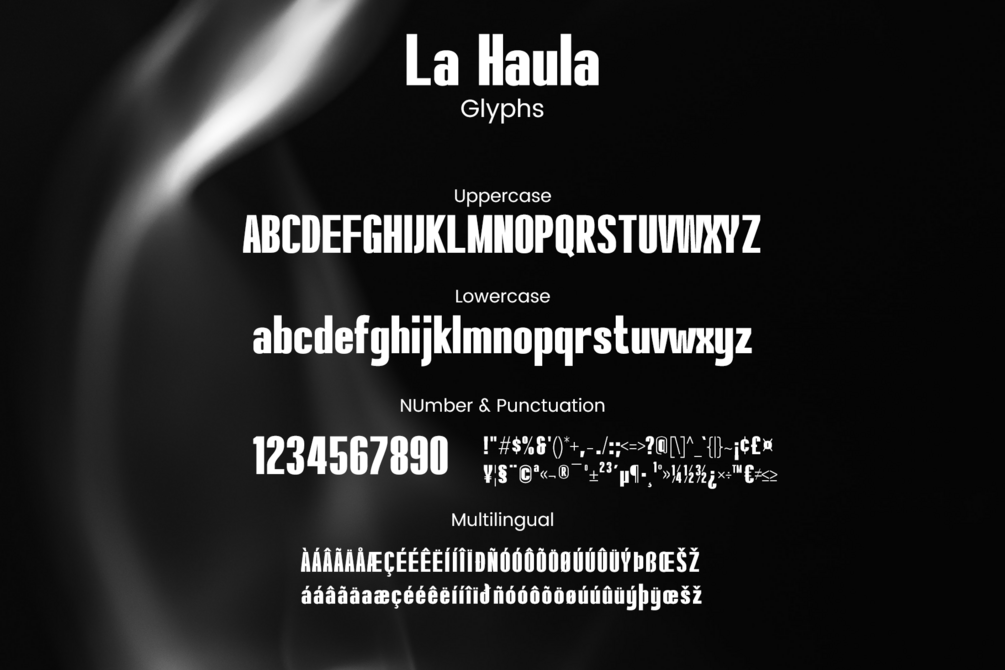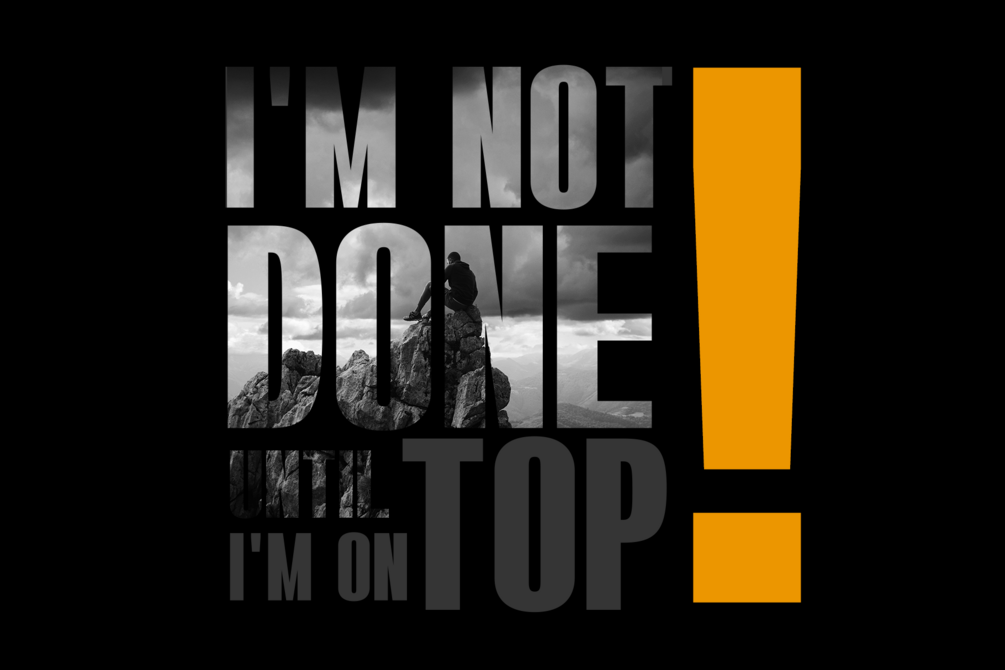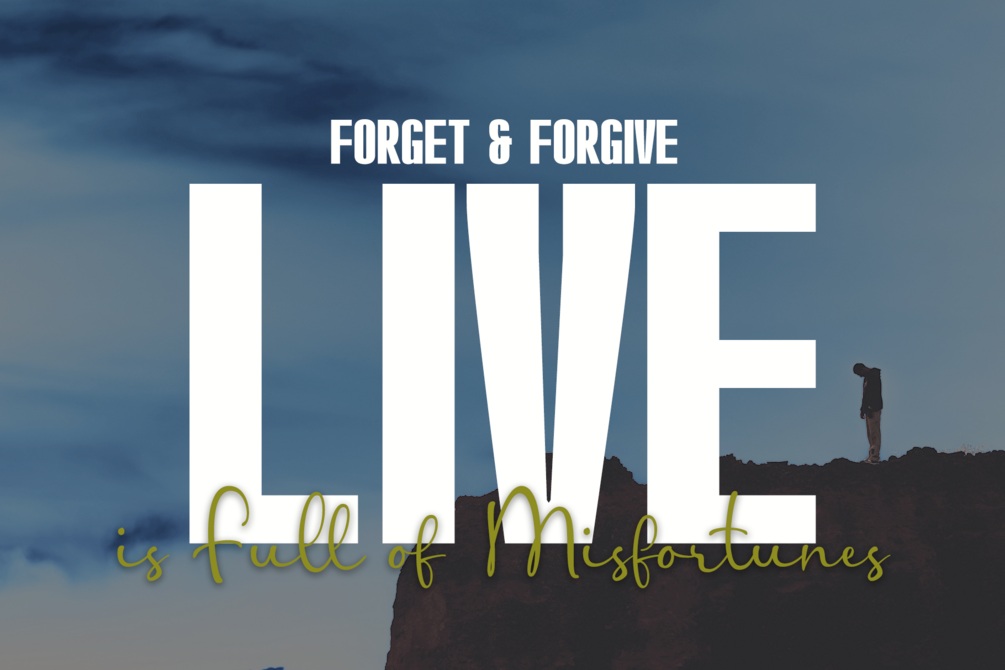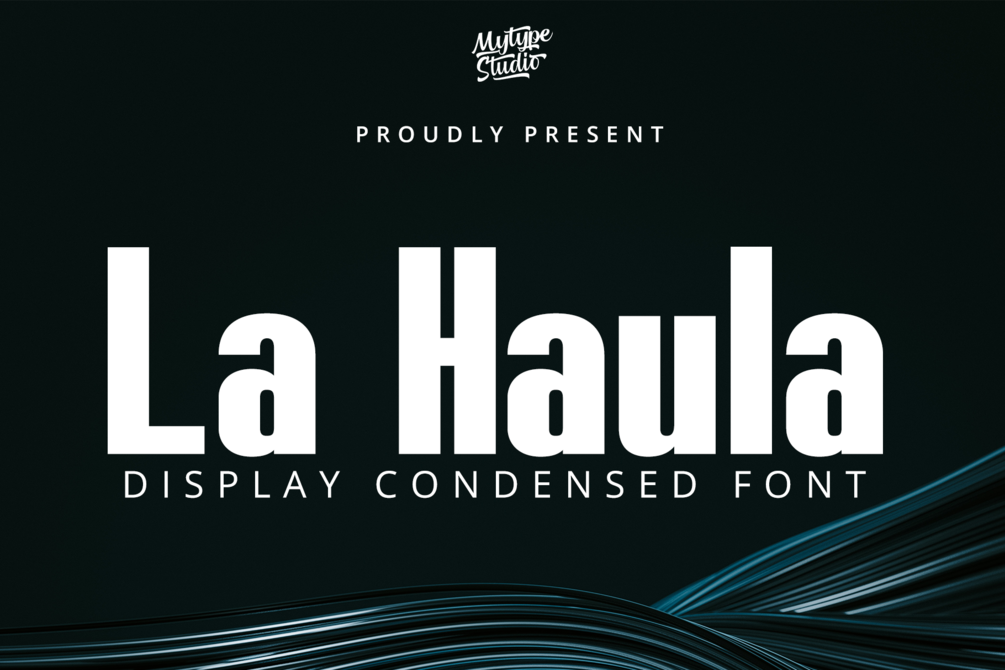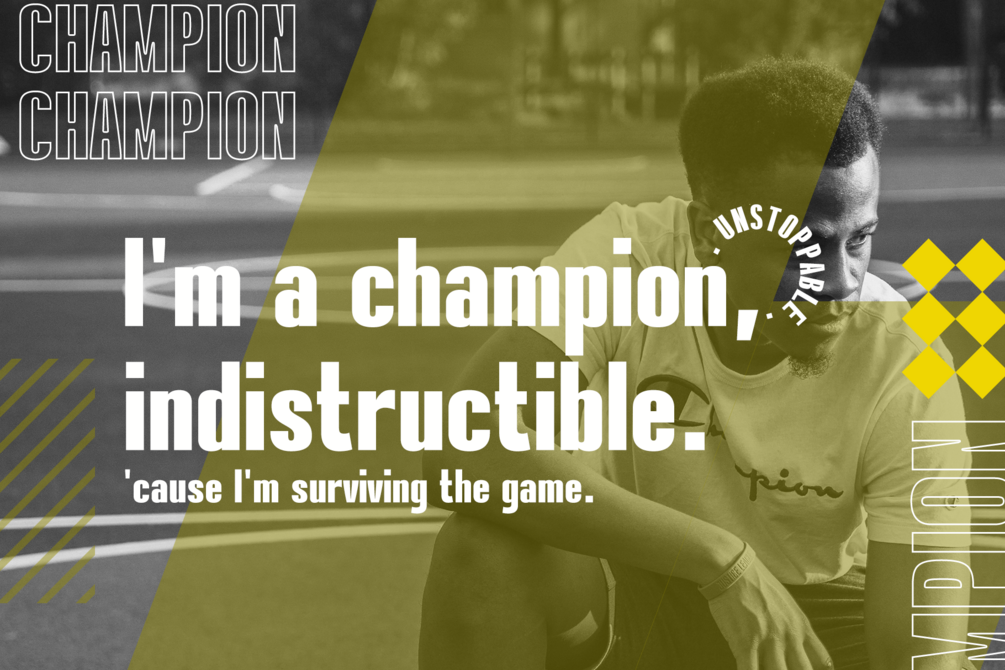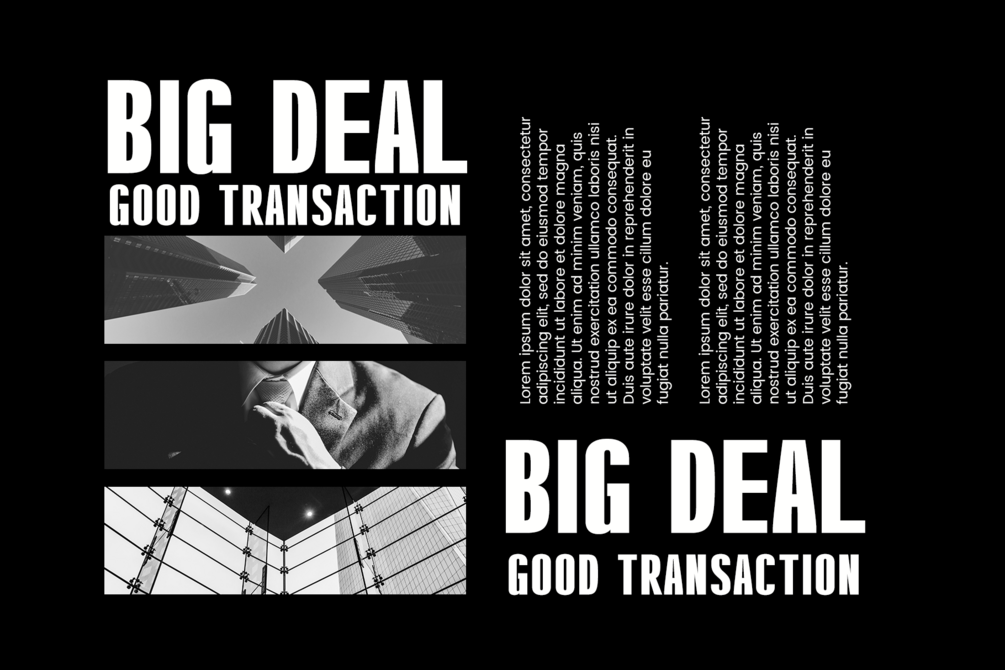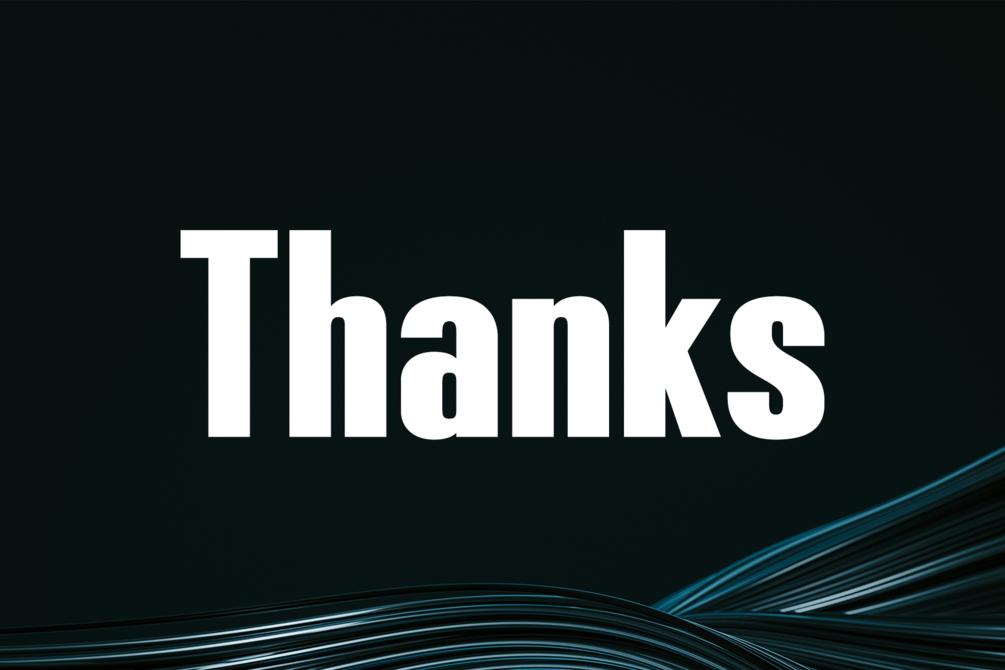
La Haula - Display Condensed Font
Introducing La Haula: Make a Bold Statement with Sleek Sophistication
Unleash the power of boldness and sophistication with La Haula, a striking display sans serif font designed to captivate and command attention. With its sleek lines and condensed form, La Haula is perfect for making a bold statement in headlines, logos, posters, and more. Elevate your designs with the confident presence of La Haula and leave a lasting impression on your audience.
Why Choose La Haula?
Bold and Condensed: La Haula features a bold and condensed design, allowing you to maximize impact and create visually striking compositions that demand attention.
Sleek Sophistication: With its clean lines and modern aesthetic, La Haula exudes an air of sophistication and refinement, making it perfect for high-impact design projects.
Versatile Usage: Whether you’re crafting branding materials, advertising campaigns, or web graphics, La Haula’s bold style and condensed form ensure versatility and impact across all applications.
Easy to Read: Despite its boldness and condensed form, La Haula remains highly legible, ensuring your message is conveyed clearly and effectively in any context.
Make Your Mark
With La Haula, boldness meets sophistication to create designs that leave a lasting impression. Embrace the sleek aesthetic and commanding presence of this display sans serif font to make your mark with confidence.